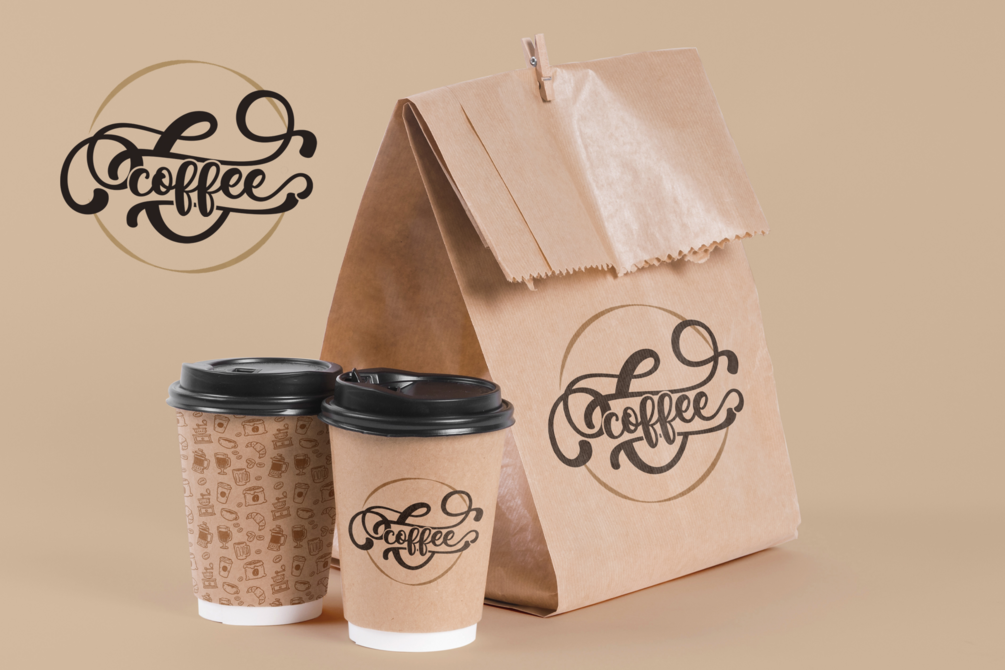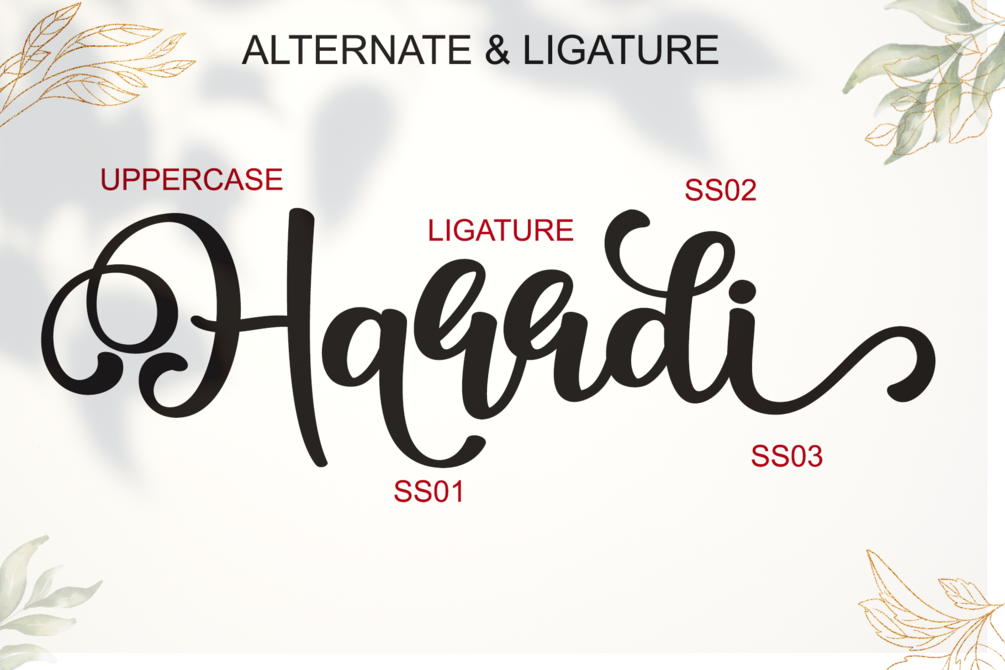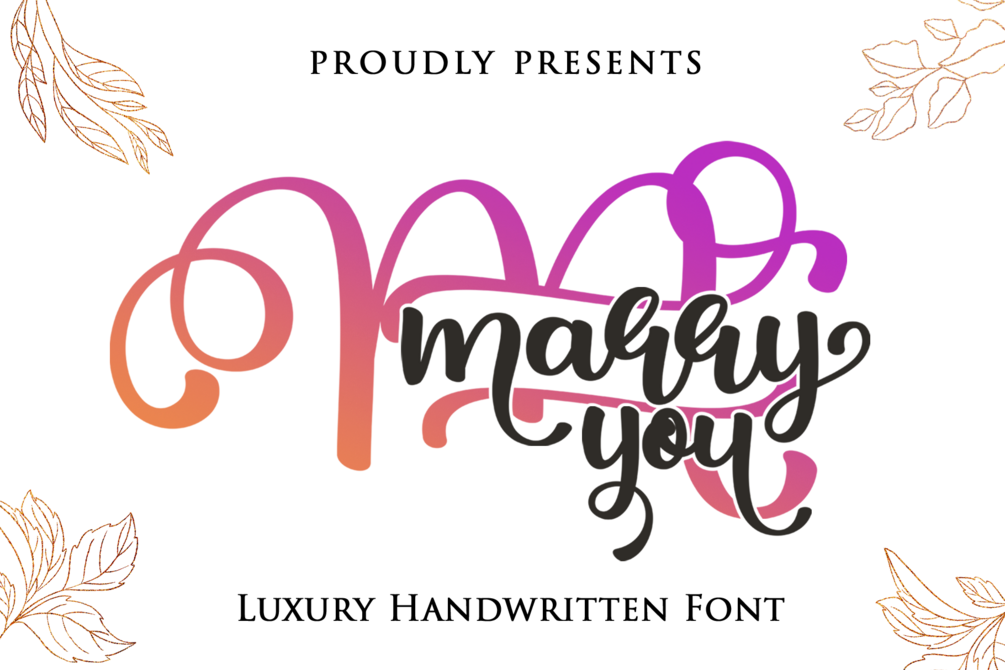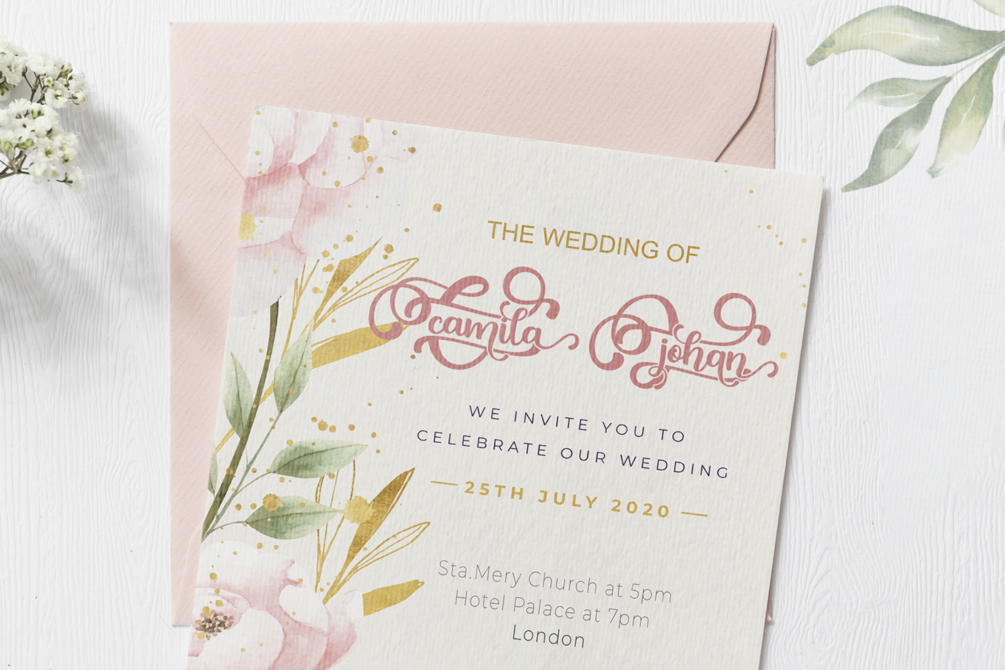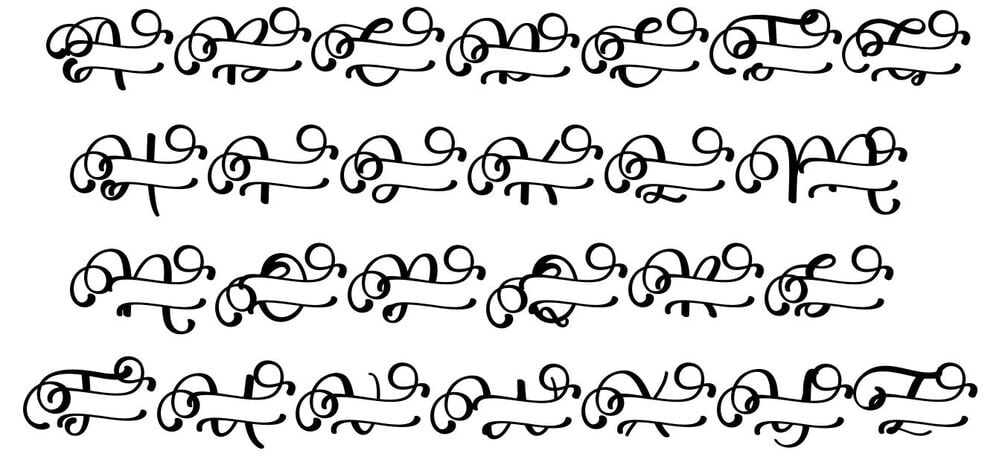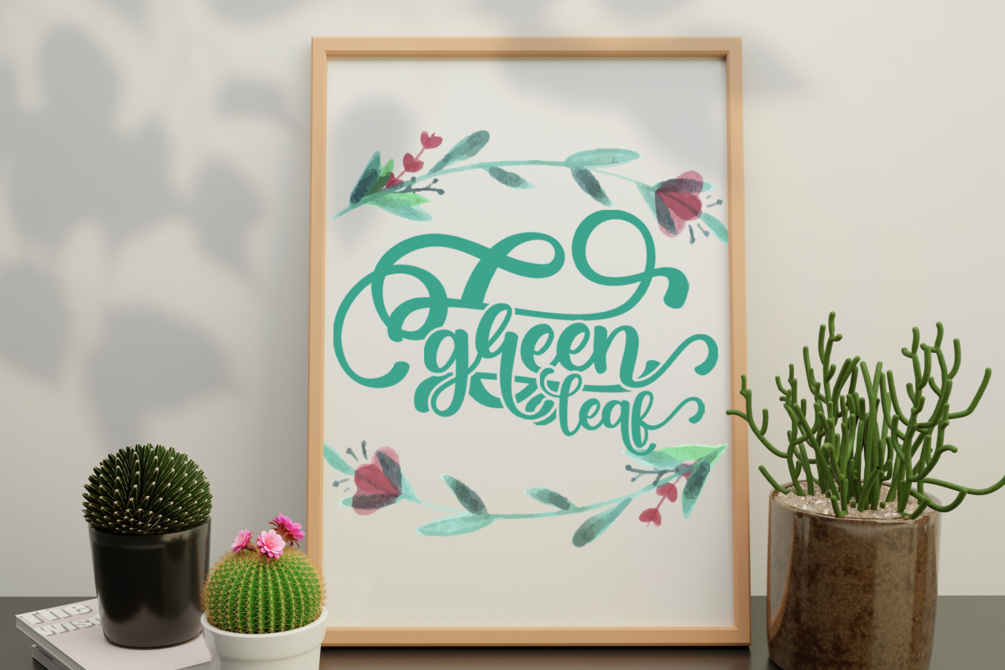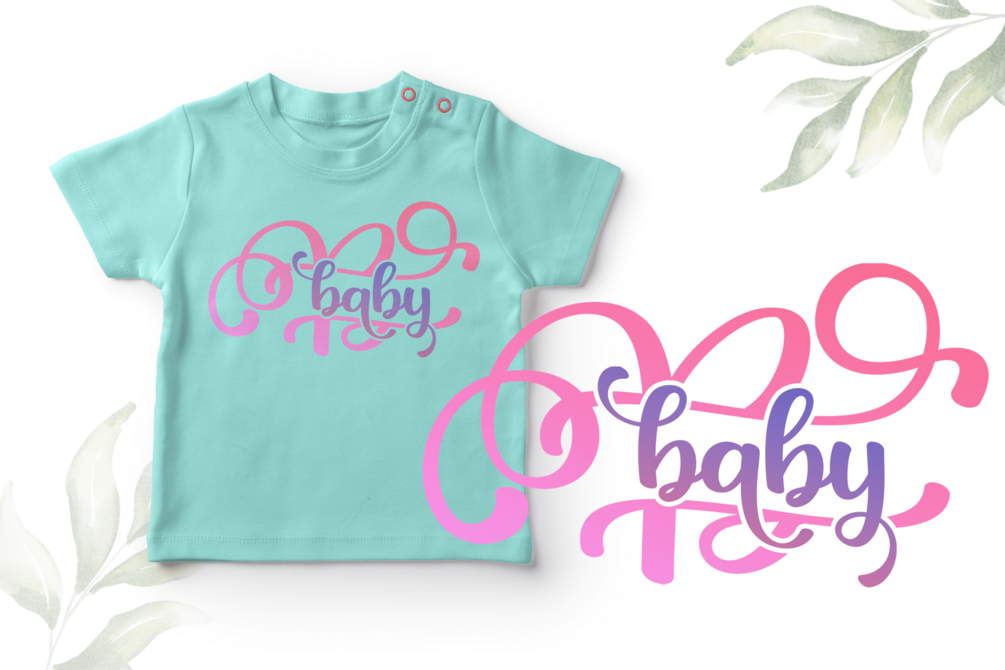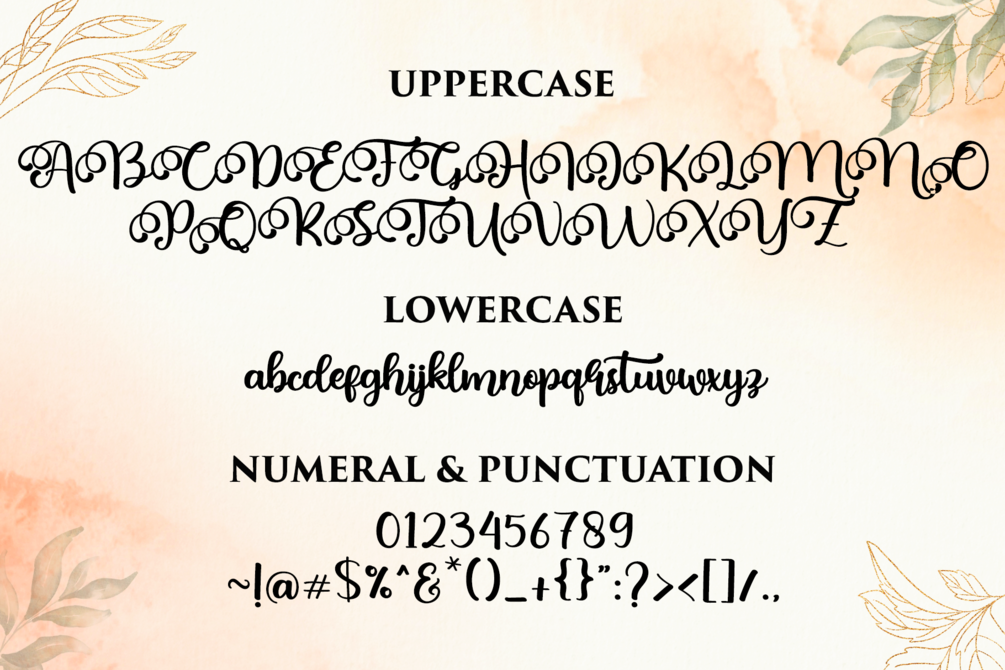
Marry You
Marry You is an amazing hand lettering script font that looks natural, attractive, and beautifully crafted. Every single letter is carefully designed to bring authentic handwritten charm and elegant flow to your text. With 277 glyphs, including 72 alternate characters and over 60 extended Latin characters for multilingual support, this font is perfect for wedding invitations, love-themed designs, custom mugs, Christmas cards, posters, branding, greeting cards, social media graphics, and Cricut projects.
- 72 Alternate Characters
- Ligatures